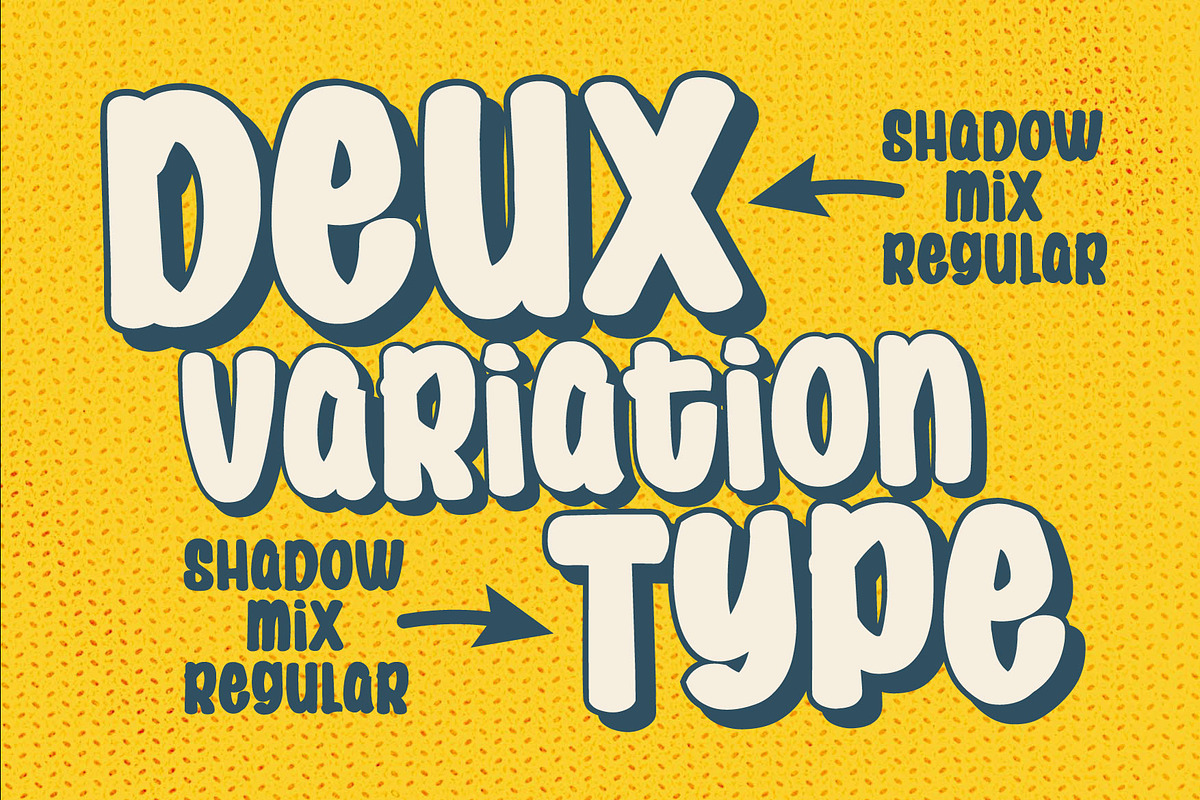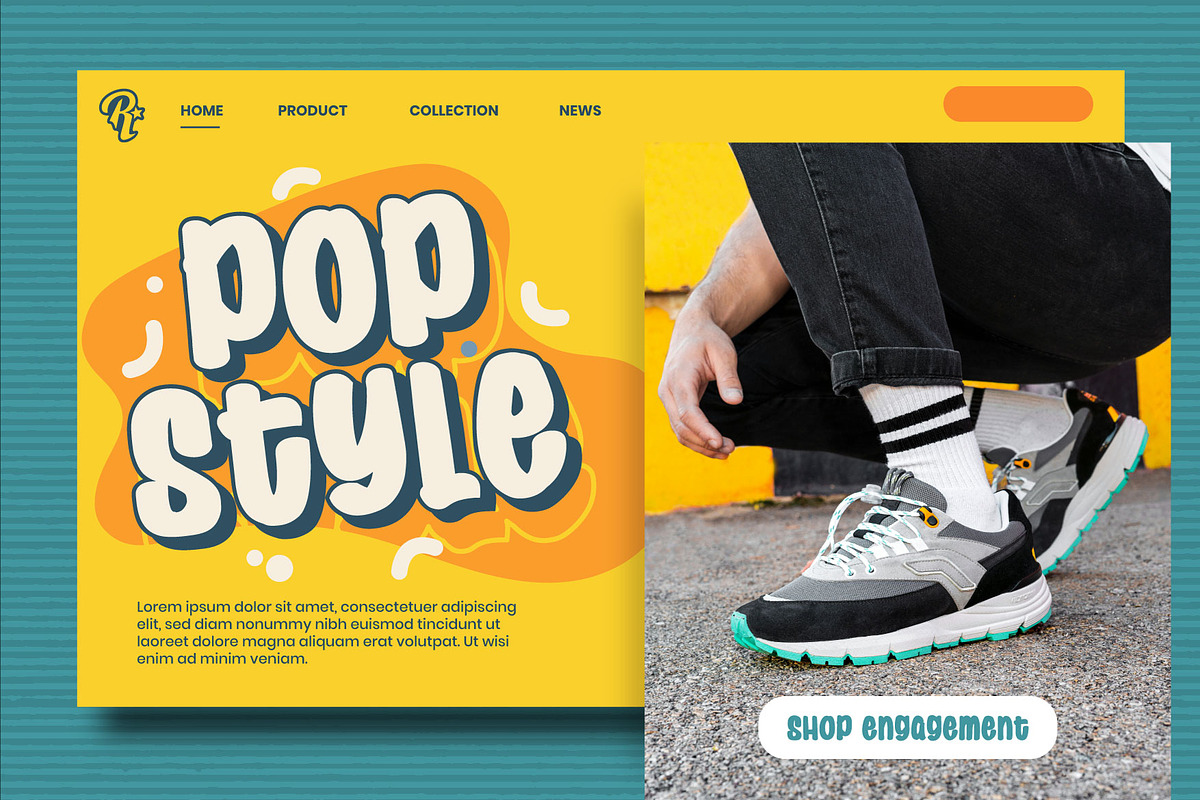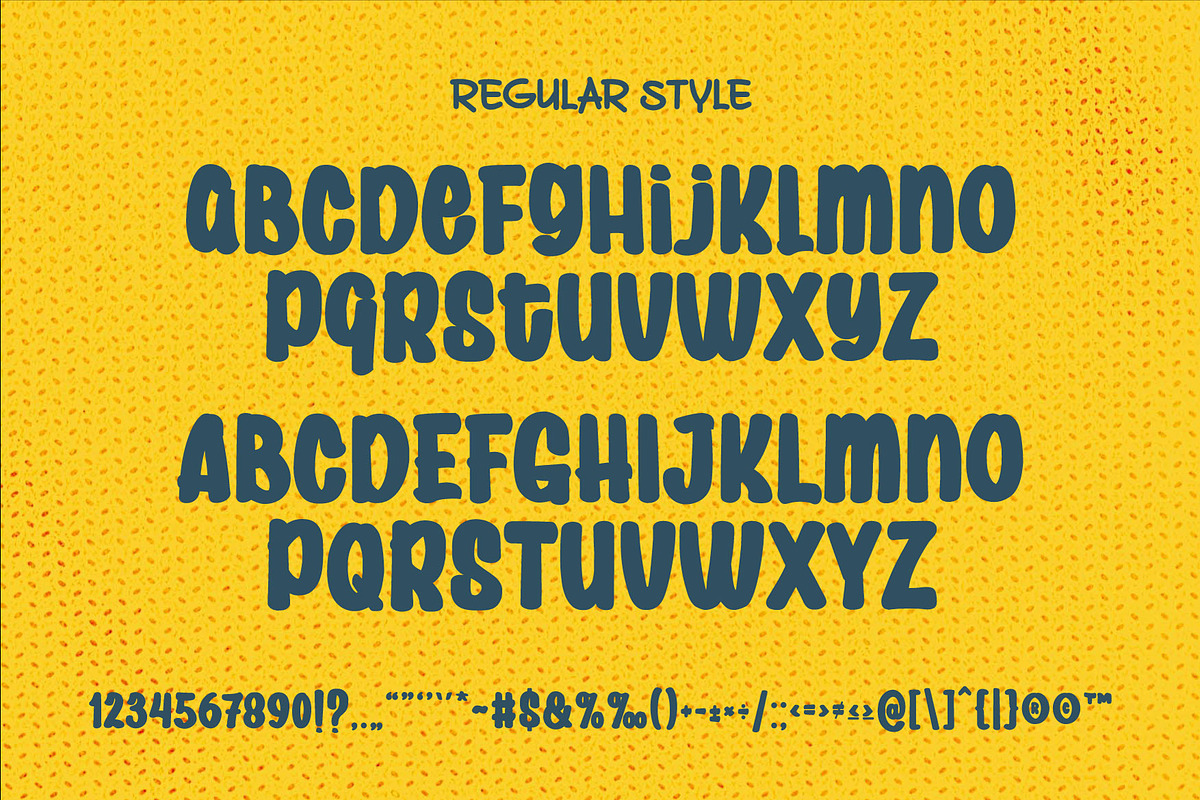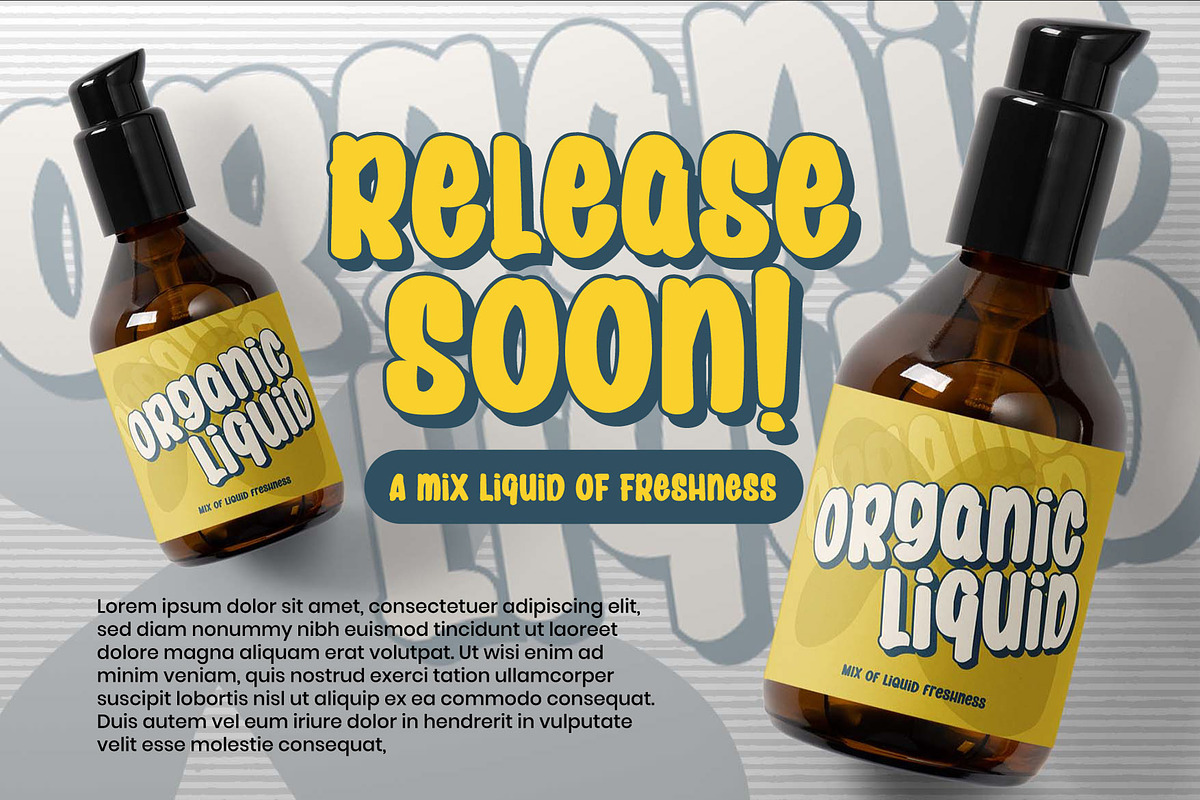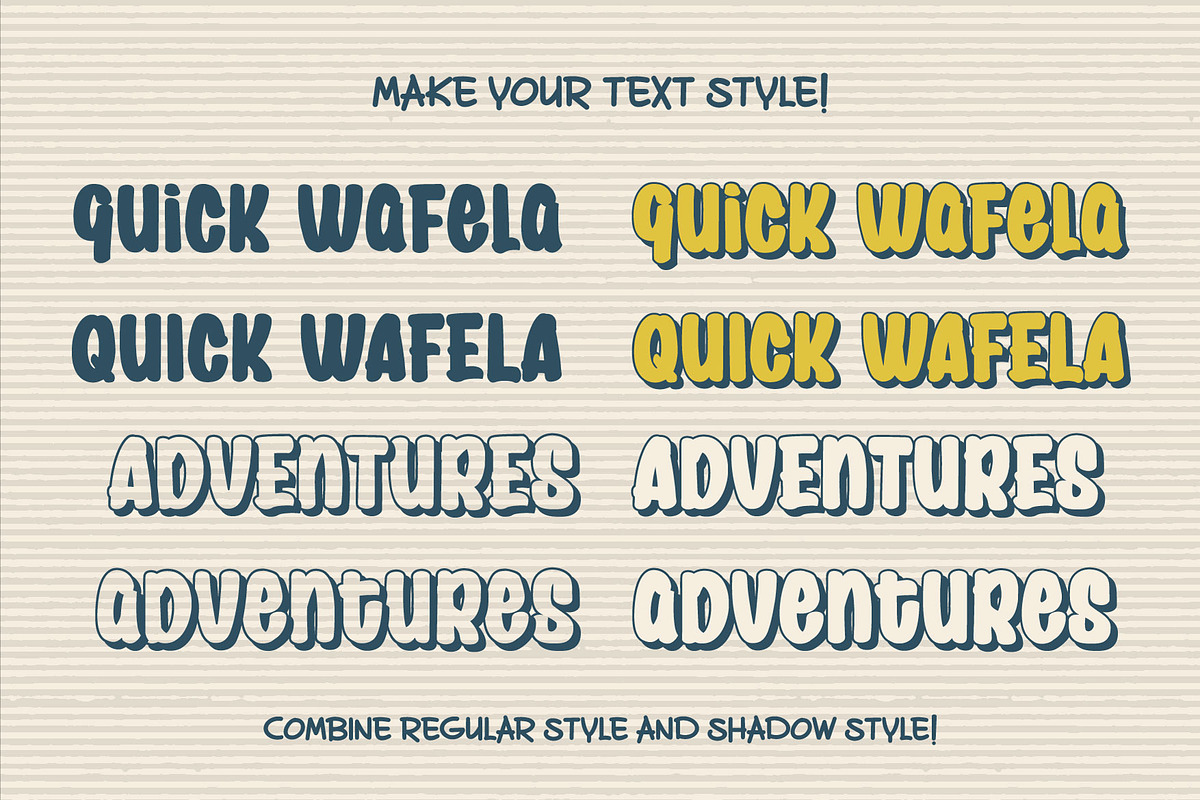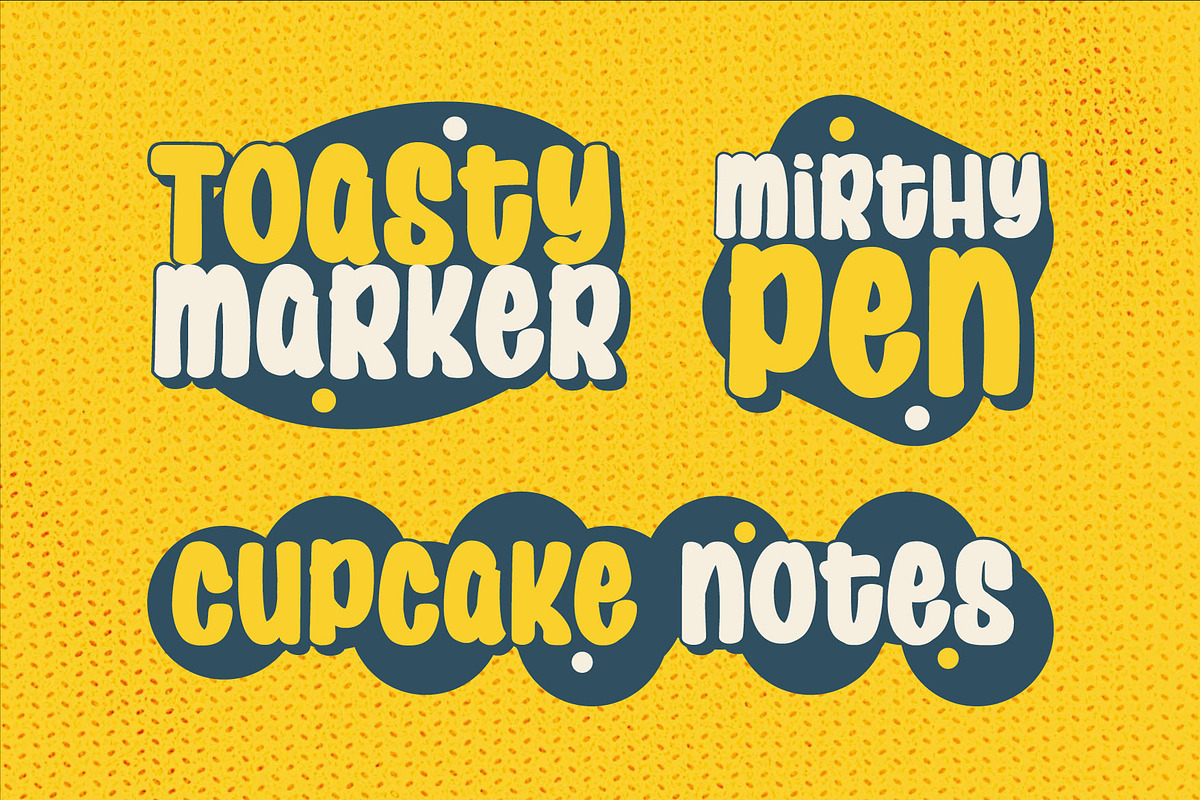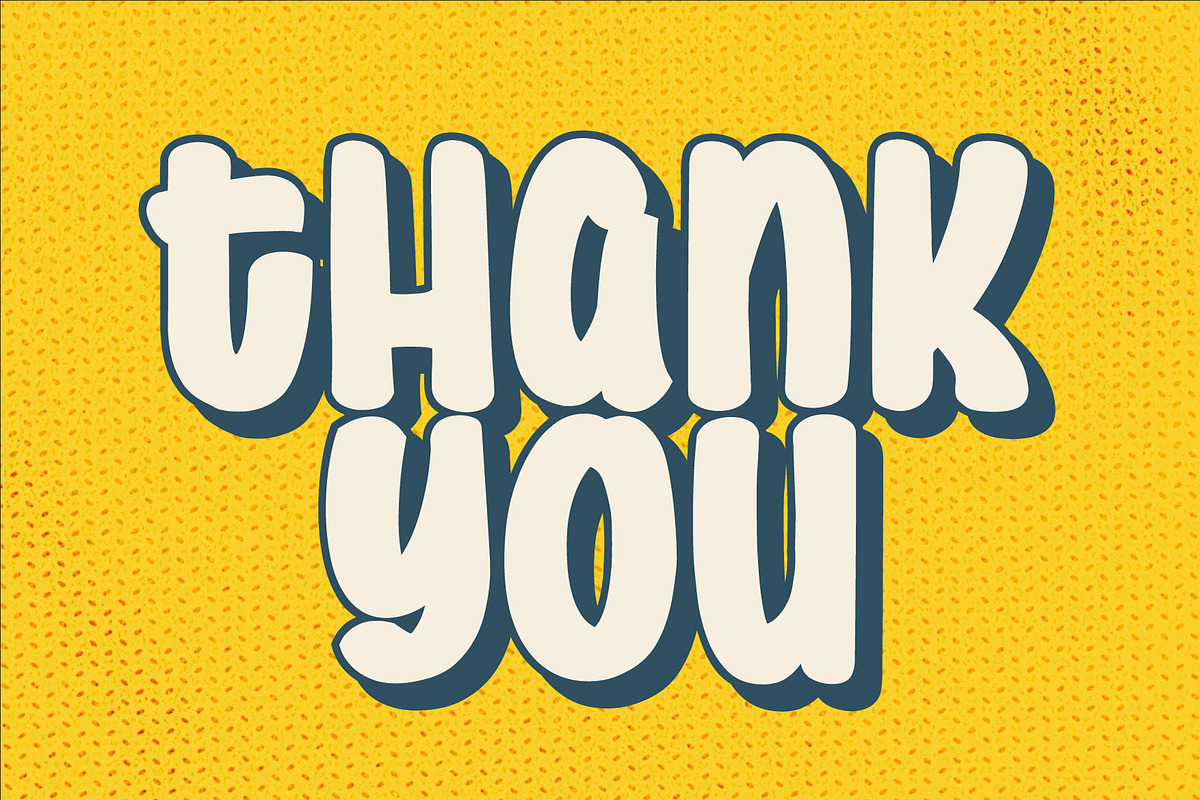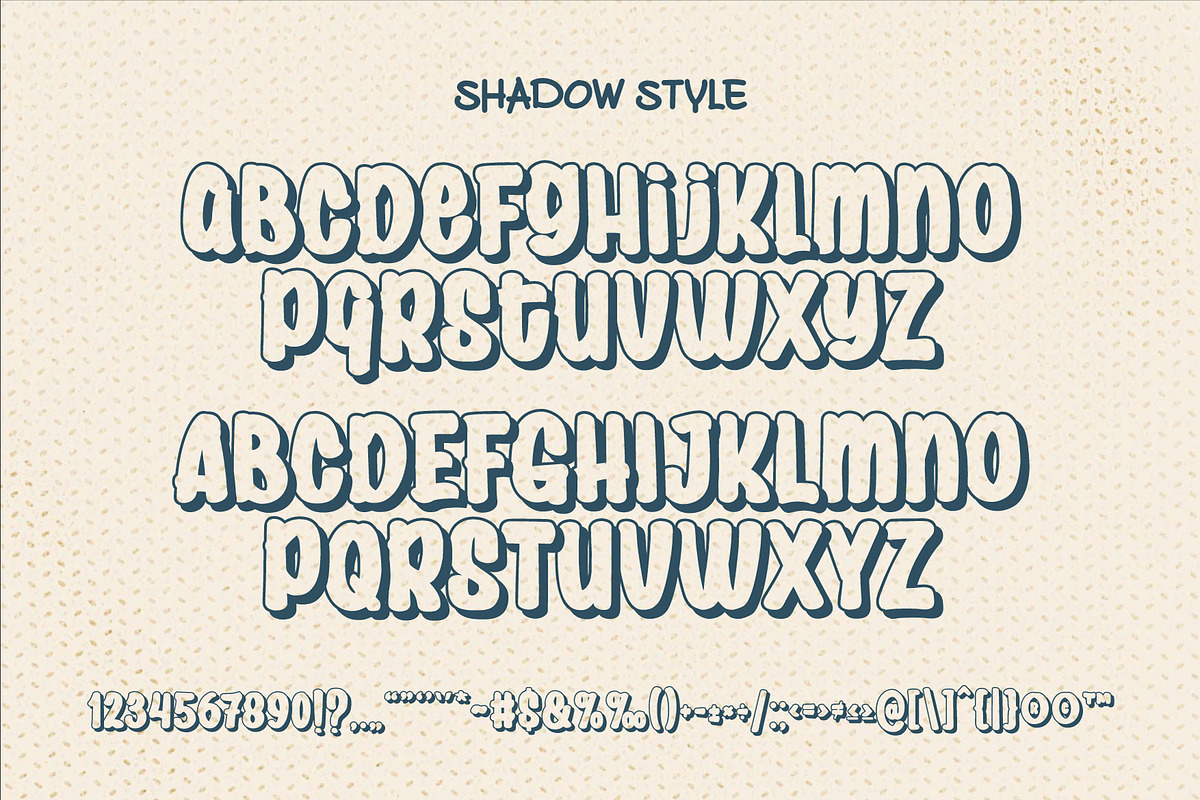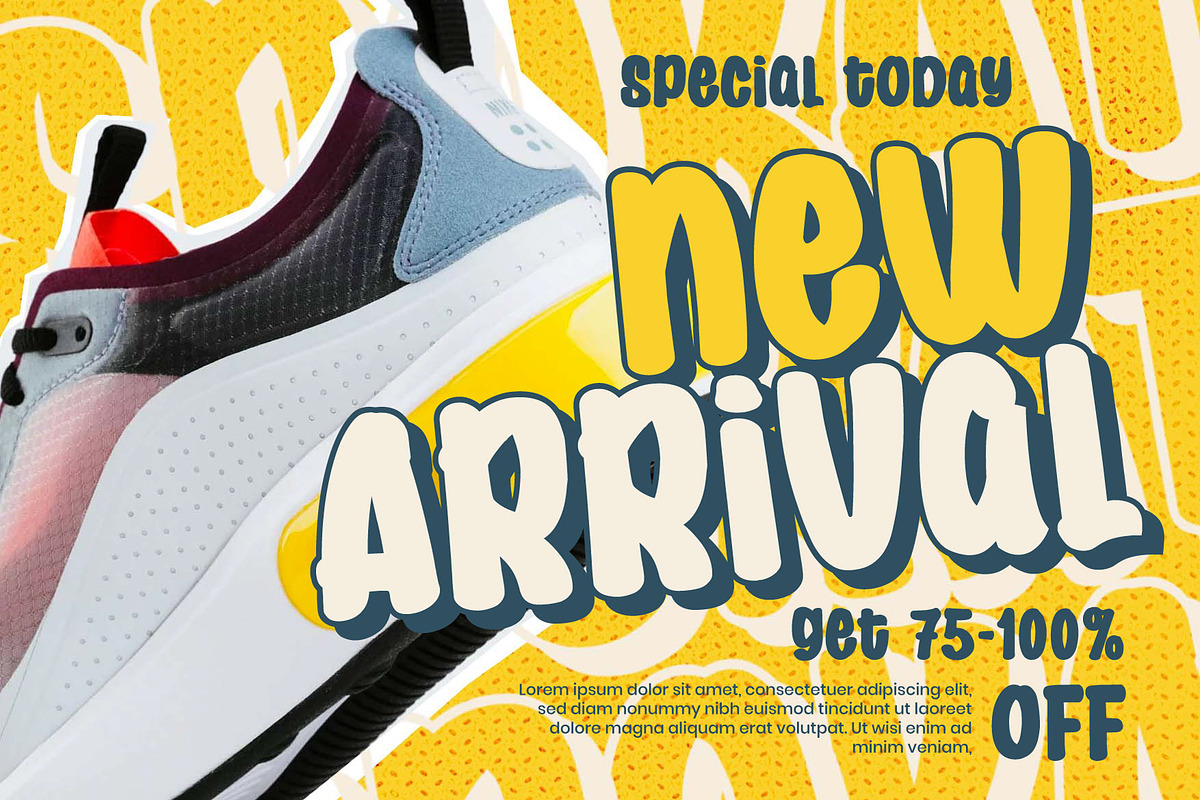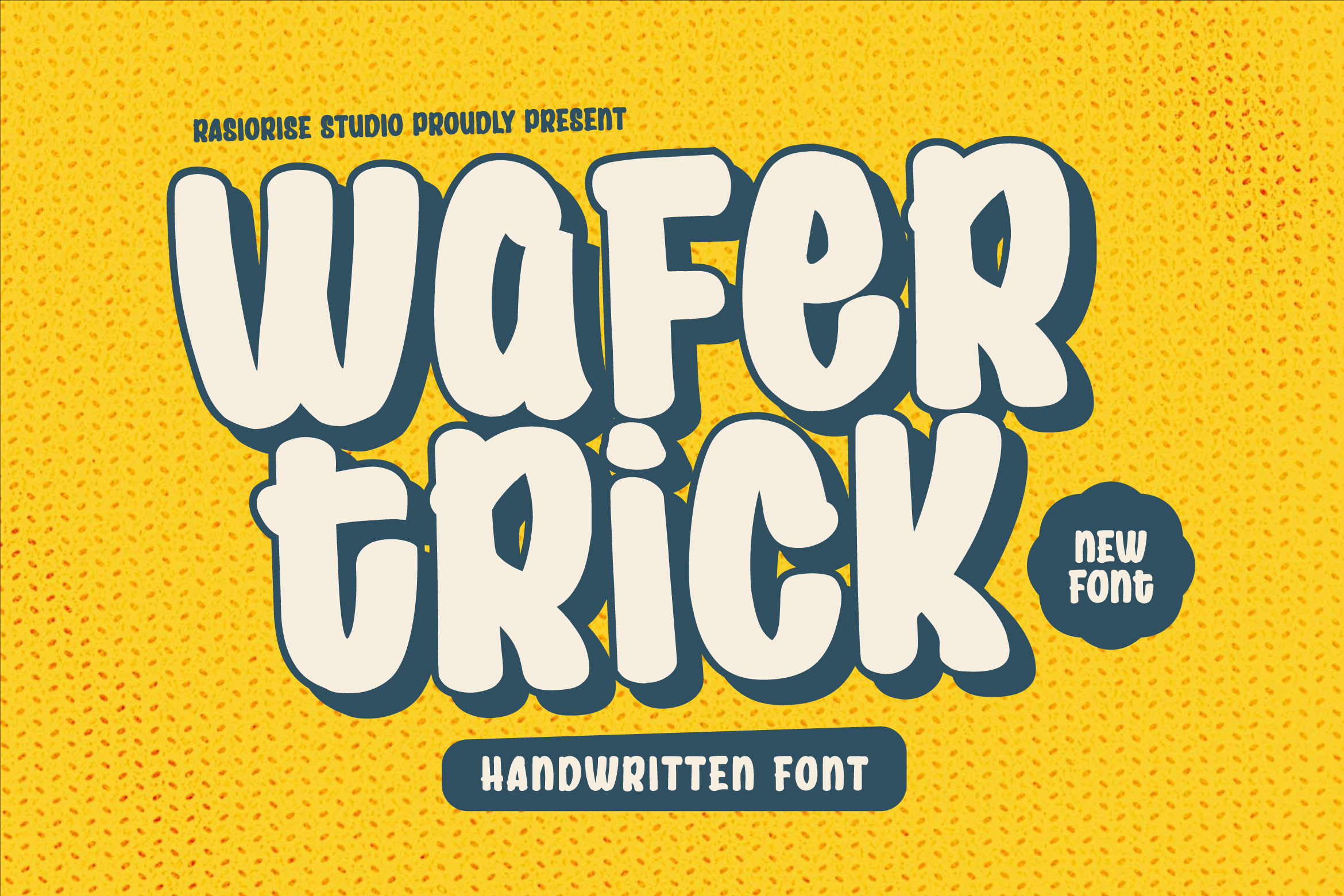
Wafer Trick a Handwritten Font
Wafer Trick Font A playful handwritten font with bold letters cheerful spirit ,perfect for creative projects like logos, posters, quotations, urban design style etc. It’s playful handwritten style upperccase and lowercase font, freestyle movement and personality while maintaining balanced font proportions, low contrast, readible and comic style touch also easy-to-read character font for your projec!.